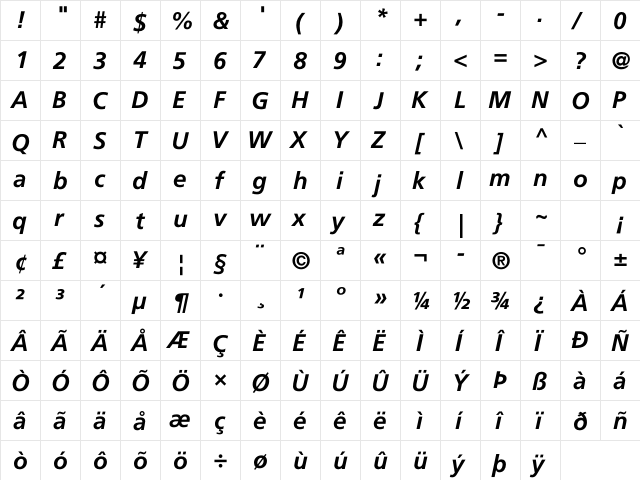
Frutiger LT Com 66 Bold Italic
Design Context for Frutiger LT Com Typeface
Frutiger LT Com is a composed and adaptable typeface that performs quietly and consistently across a wide range of design contexts. The slanted form adds forward momentum and visual energy. Its bold stroke weight gives it real presence on the page.
Pro Tip: Use Frutiger LT Com for emphasis, pull quotes, and subheadings where its slanted energy can add rhythm to the layout.